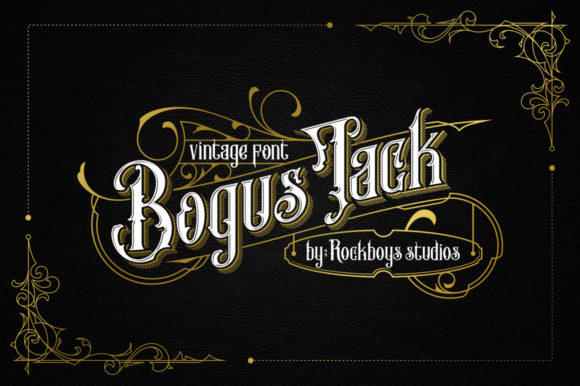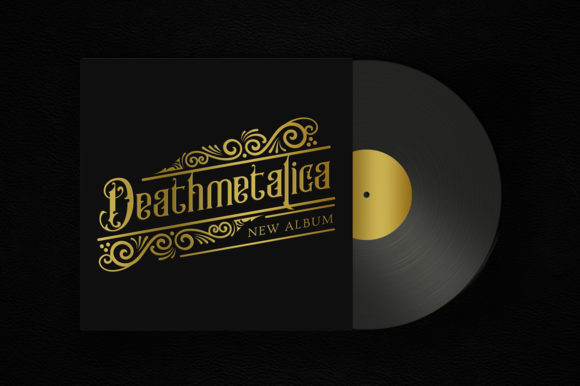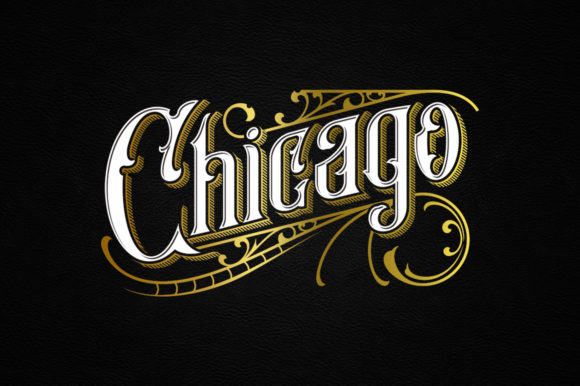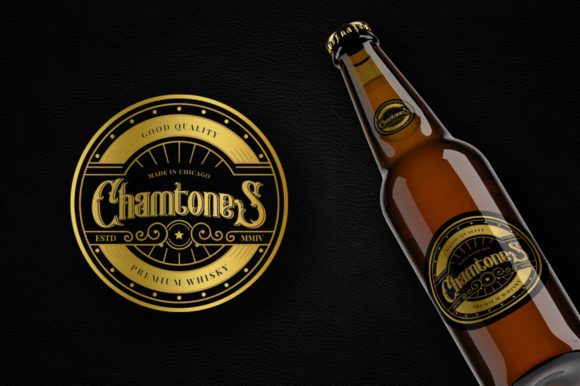
Bogus Jack Font: Unique Blackletter for Bold Logo Design & Branding
About the Bogus Jack Font
We are excited to introduce Bogus Jack Font, a must-have typeface for any serious designer. Bogus Jack is an amazingly unique blackletter font with a strong and classic vibe. Get inspired by its original feel and use it for tattoo designs, logos, posters, book covers, albums and more!
Its bold, slightly rebellious personality makes Bogus Jack ideal for headlines, branding projects requiring a strong visual identity, and posters where impact is key. It also works well for short text applications like logos and short-form packaging copy. However, its highly decorative nature makes it unsuitable for body text or UI elements; readability suffers at smaller sizes and in extended passages.
Pairing Bogus Jack effectively requires a contrasting typeface to balance its weight and ornamentation. Consider a clean sans-serif like Montserrat or a geometric sans-serif such as Futura for a modern contrast, or a classic serif like Garamond or Didot for a more traditional feel. These pairings provide visual breathing room and enhance legibility in supporting text.
Brands seeking a vintage yet assertive aesthetic will find Bogus Jack a powerful choice. Think handcrafted goods, motorcycle apparel, or independent music labels—contexts where its strong character adds authenticity and memorability.
Bogus Jack Font Usage Examples
Bogus Jack Font Example